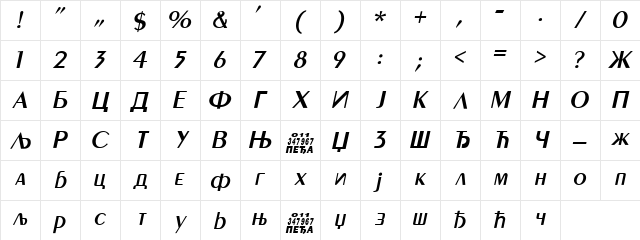
C_Penguin Italic Free Font
C_Penguin Italic
Design Context for C_Penguin
C_Penguin is a composed and adaptable typeface that performs quietly and consistently across a wide range of design contexts. The slanted form adds forward momentum and visual energy.
Pro Tip: Use C_Penguin for emphasis, pull quotes, and subheadings where its slanted energy can add rhythm to the layout.